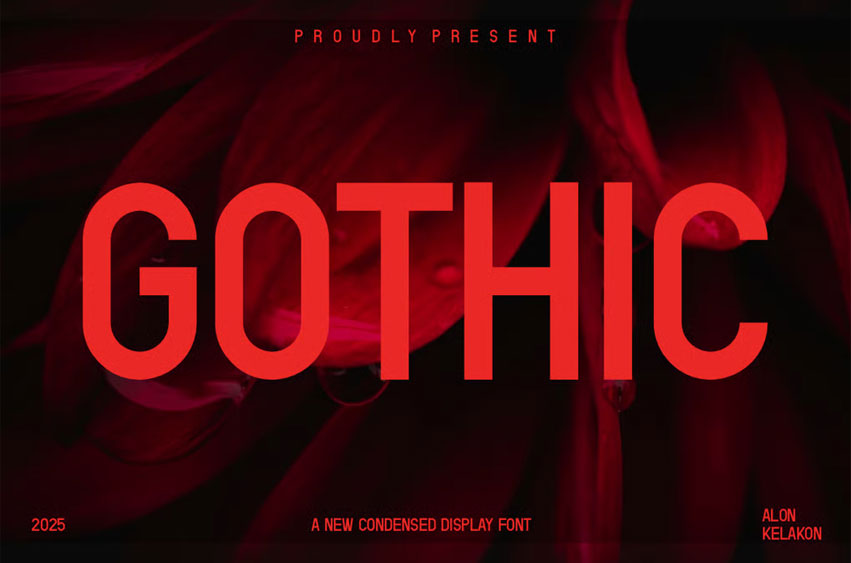
Gothic Condensed Font
Gothic Condensed Font is a bold and powerful condensed display font designed to make an immediate and unforgettable statement.
With its commanding presence and sharp, contemporary aesthetic, Gothic is the perfect choice for projects that demand attention and a strong visual voice.